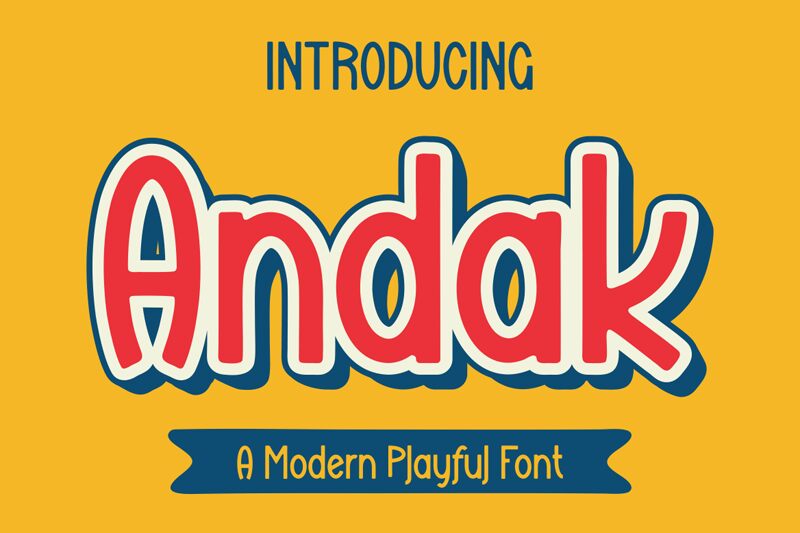
Andak
Andak font is a display typeface designed by Gilang Ternadho. This comic font has a rounded appearance that adds warmth to its presentation, offering an approachable look with its geometric elements. The letters were drawn with the inspiration of relaxed and modernist influences, creating an inviting mood suitable for projects of various types.